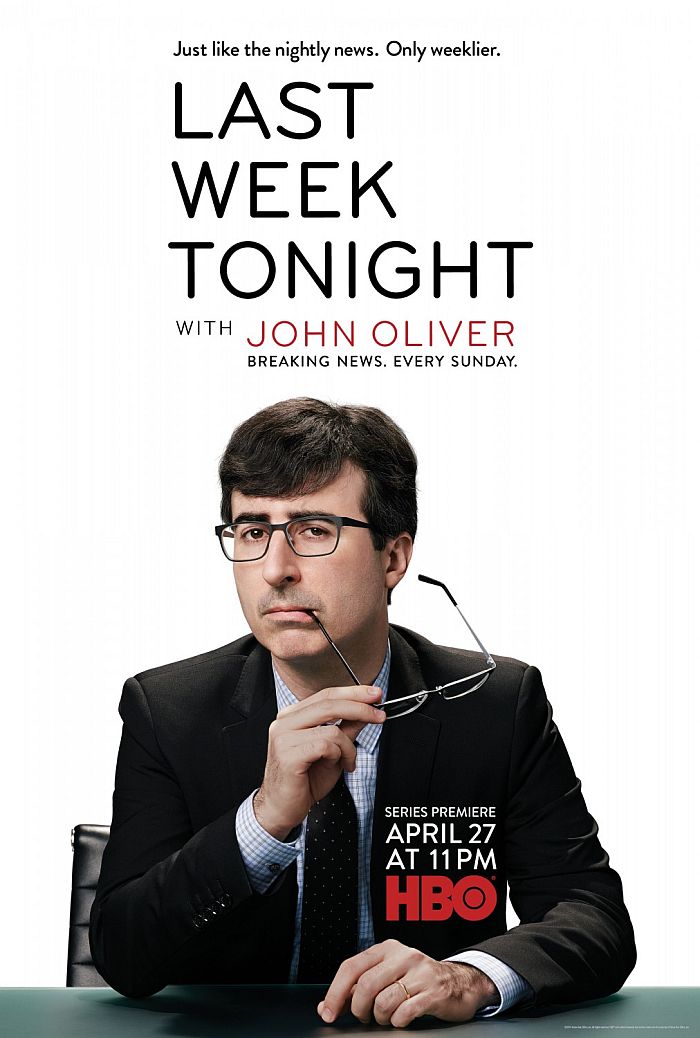
Last Week Tonight Font
ComedyLast Week Tonight is a satirical news program that airs weekly on HBO, where host John Oliver delivers humorous and in-depth commentary on a wide range of current events, social issues, and political topics, often exposing corruption and highlighting lesser-known stories.